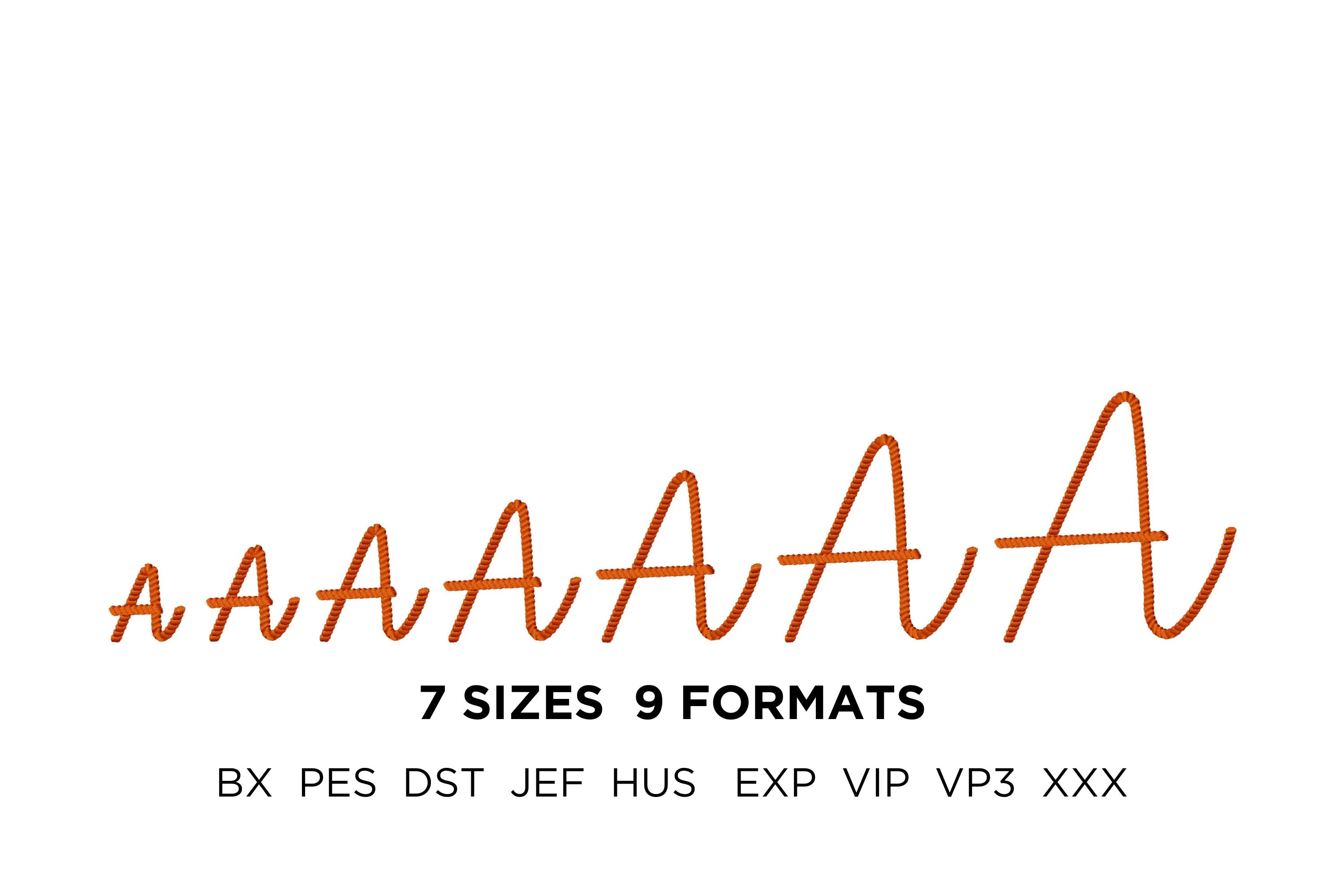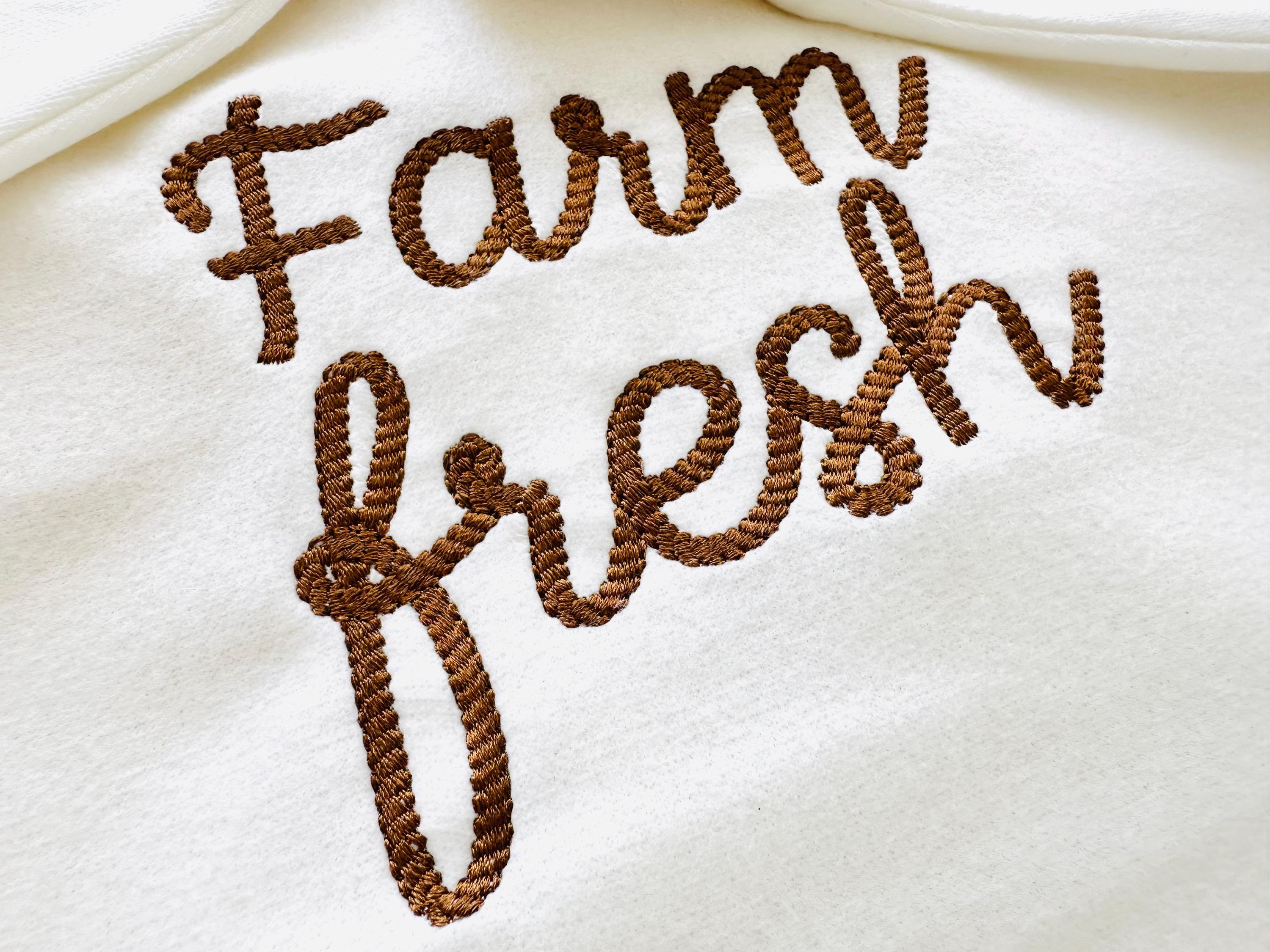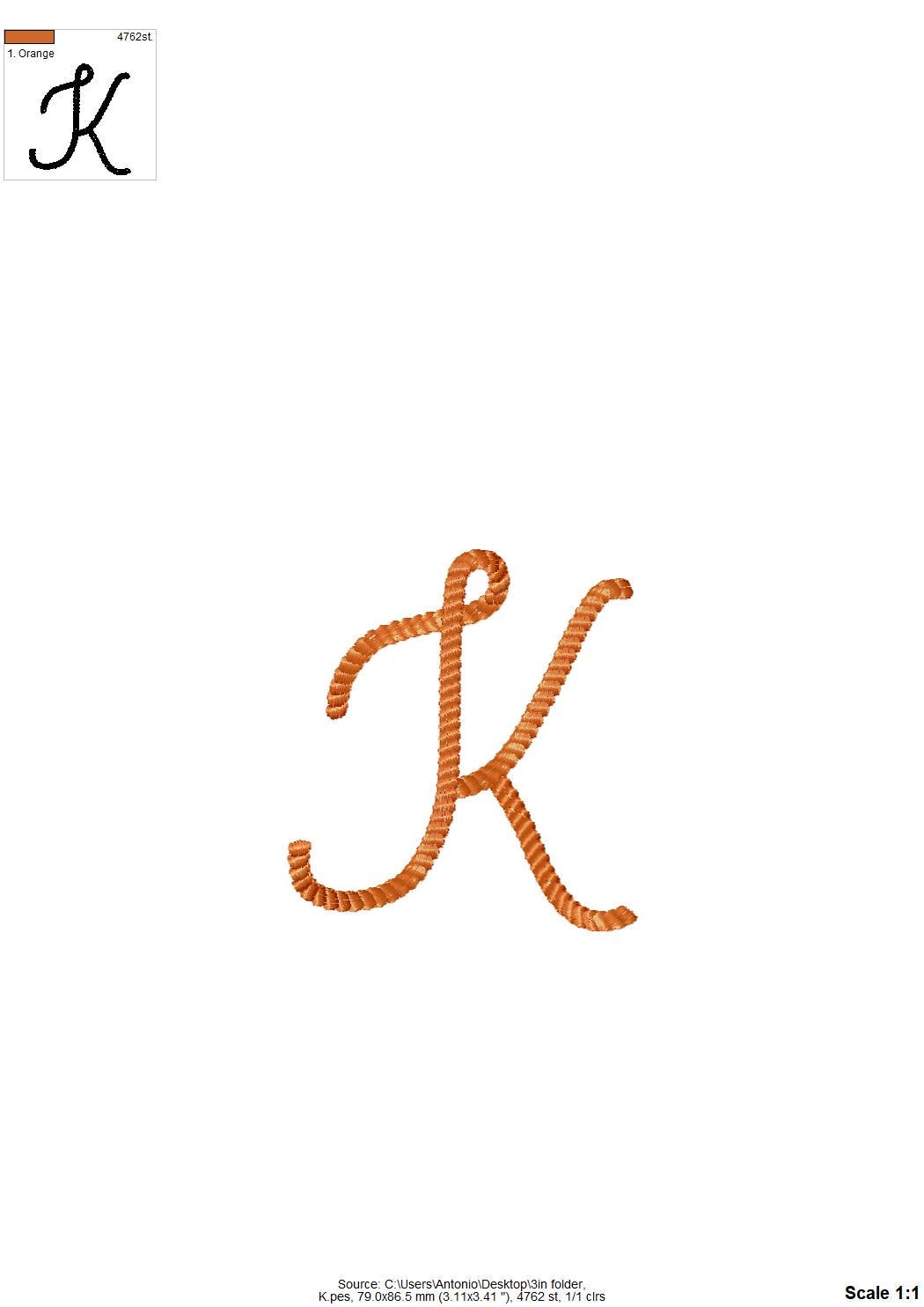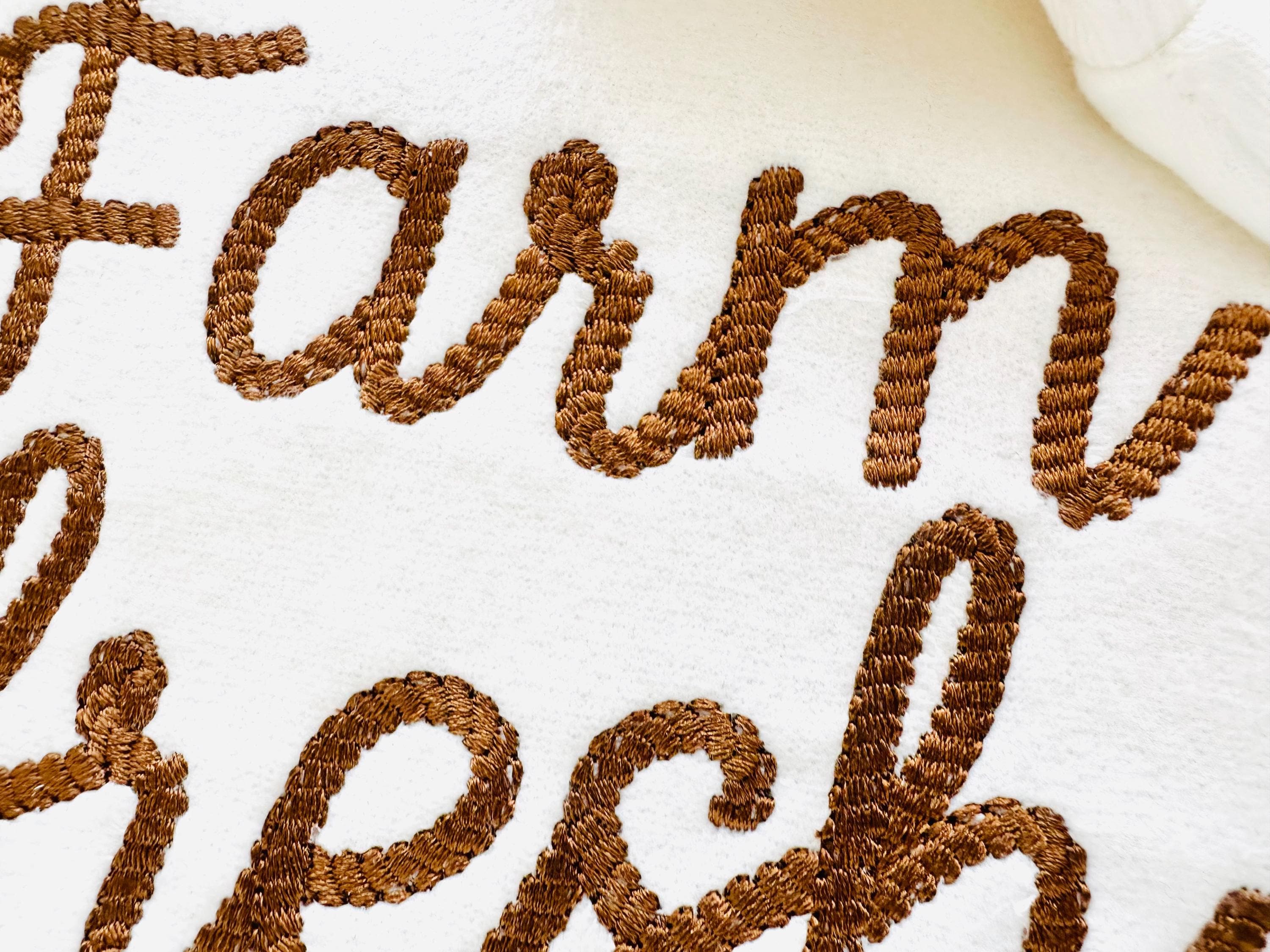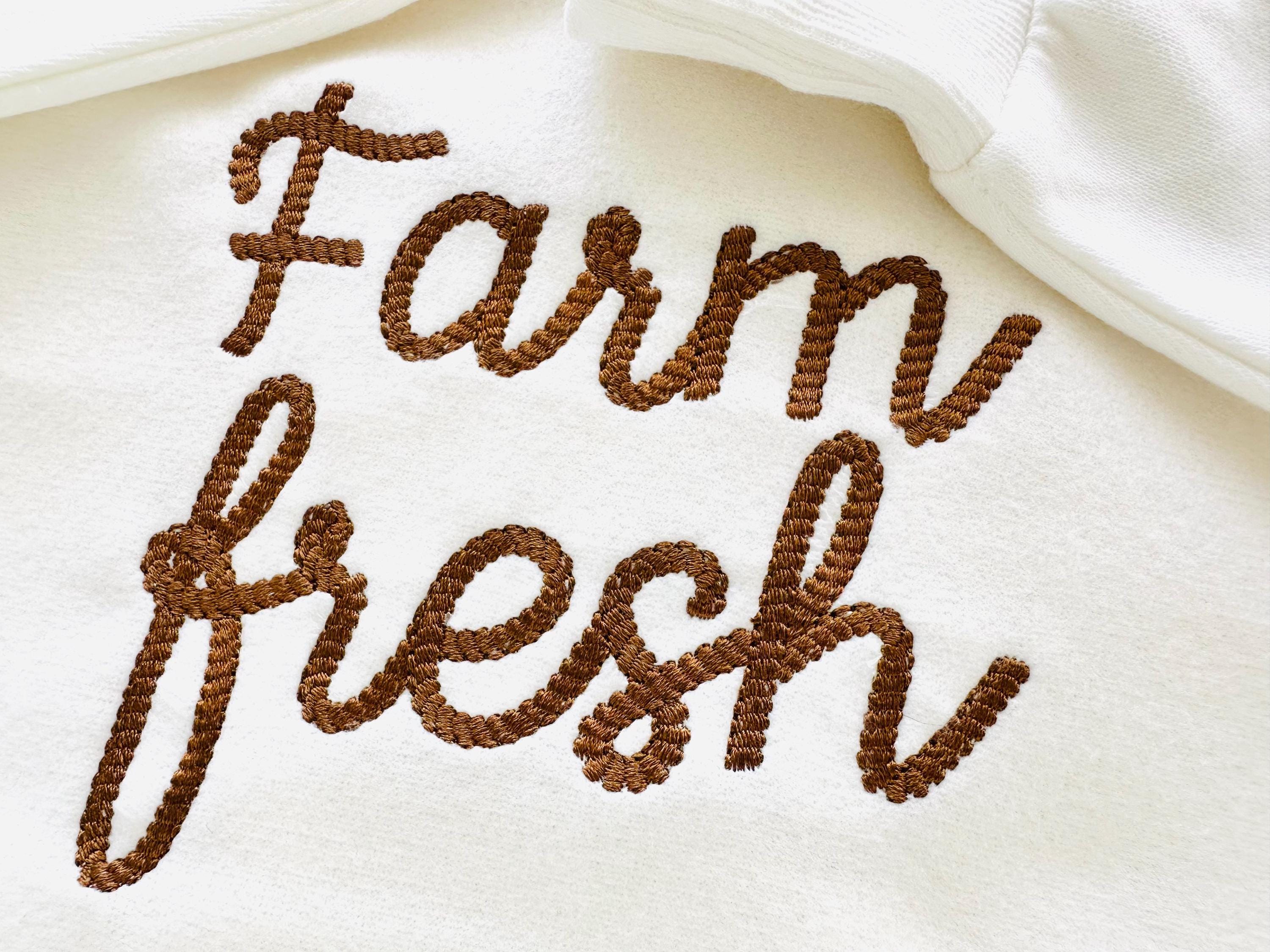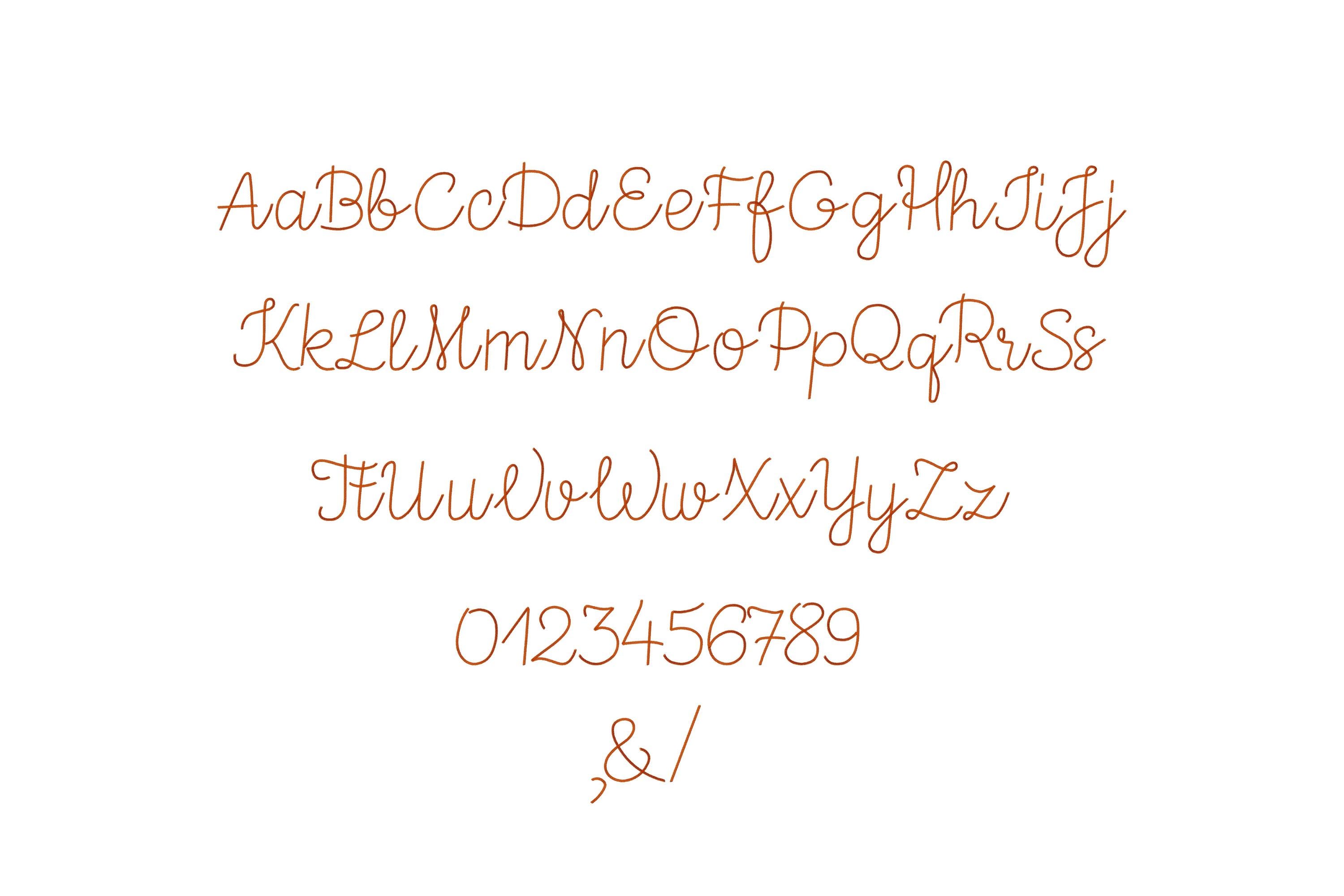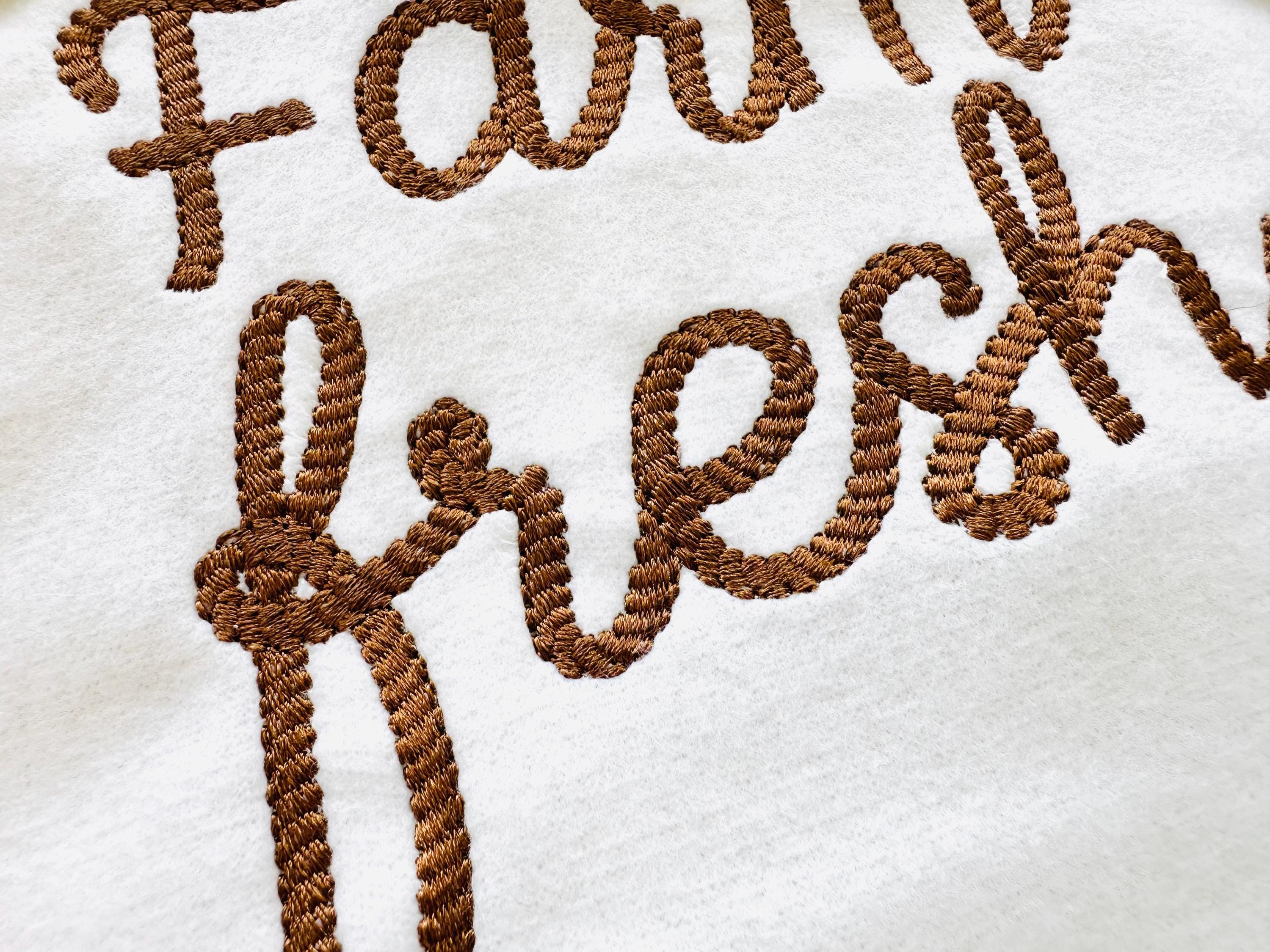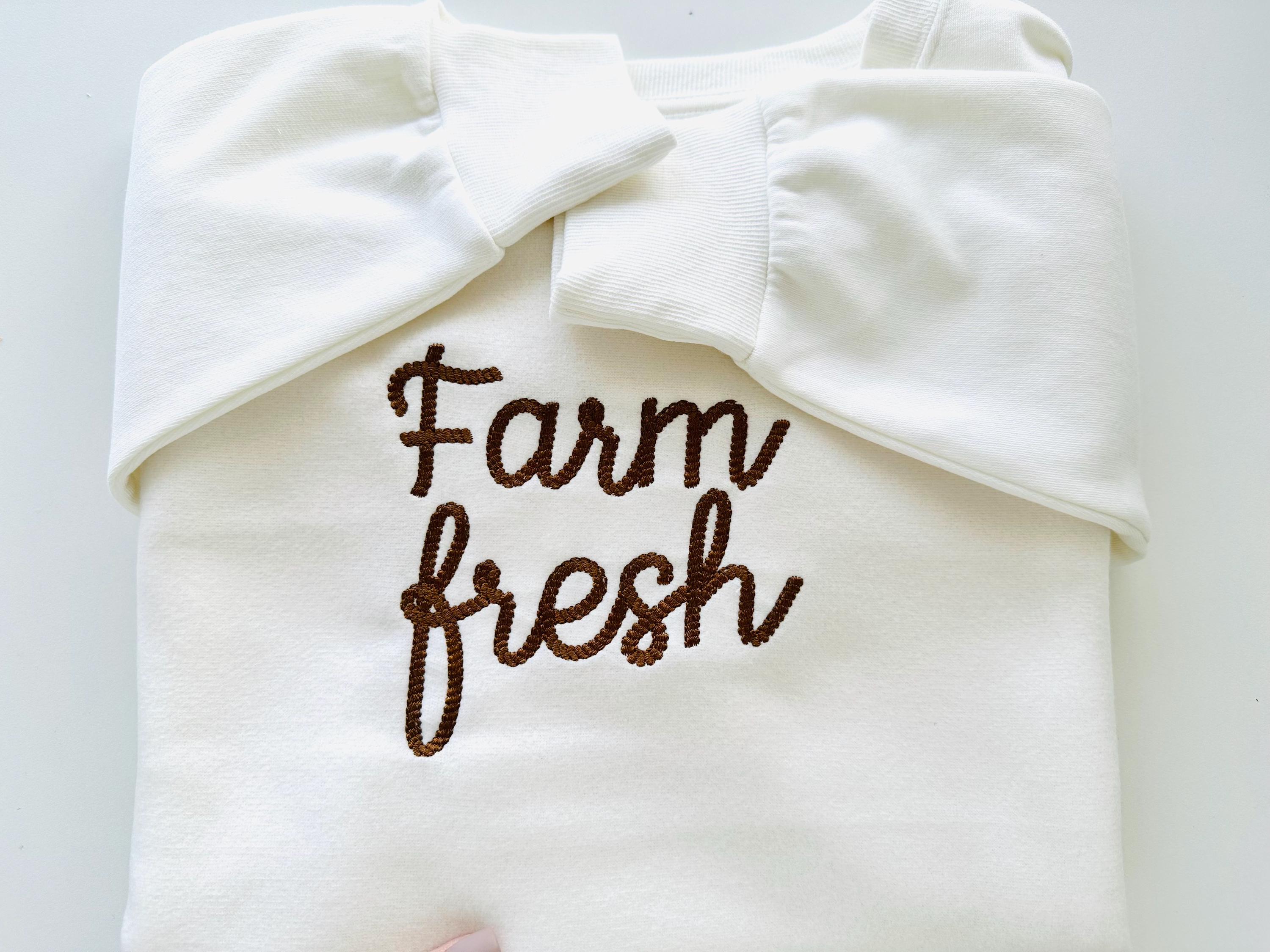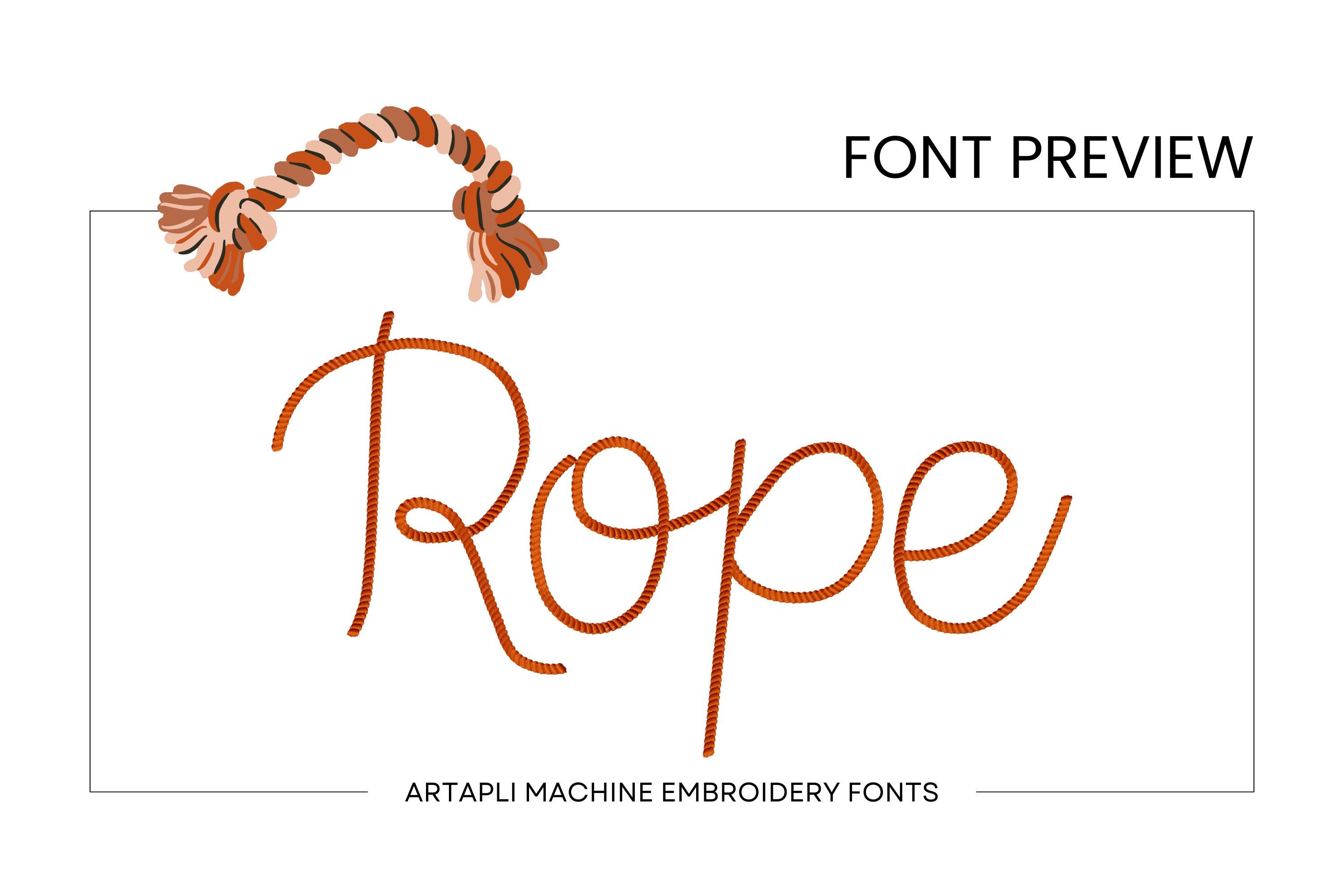
Rope stitch FONT Rodeo Cowboy Alphabet Monogram letters Machine Embroidery Designs handwritten script Font many sizes 1.7 up to 5.4in, BX
Entire alphabet A-Z uppercase and lowercase letters, numbers 0-9, and punctuation.